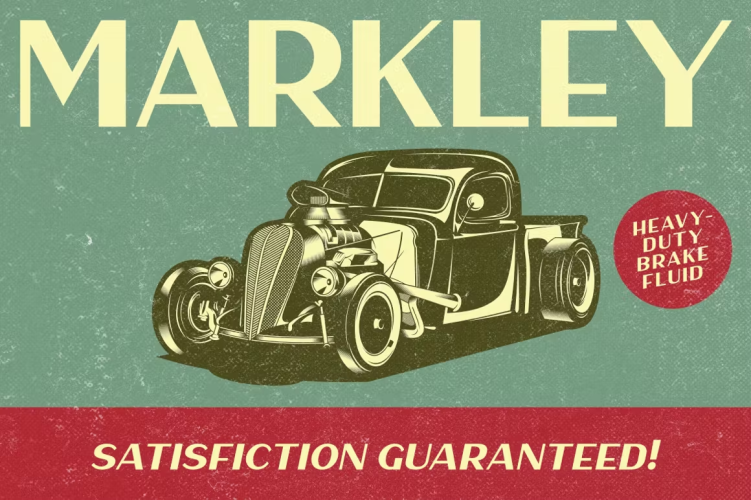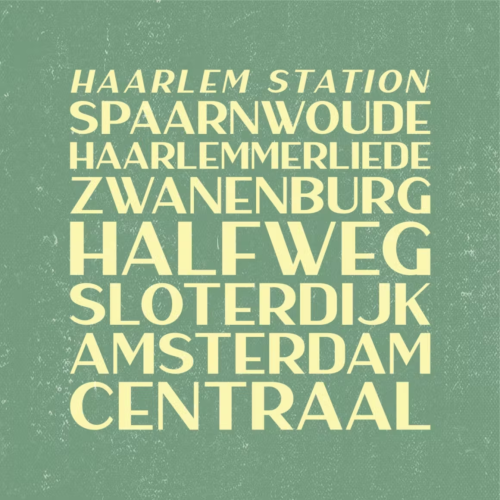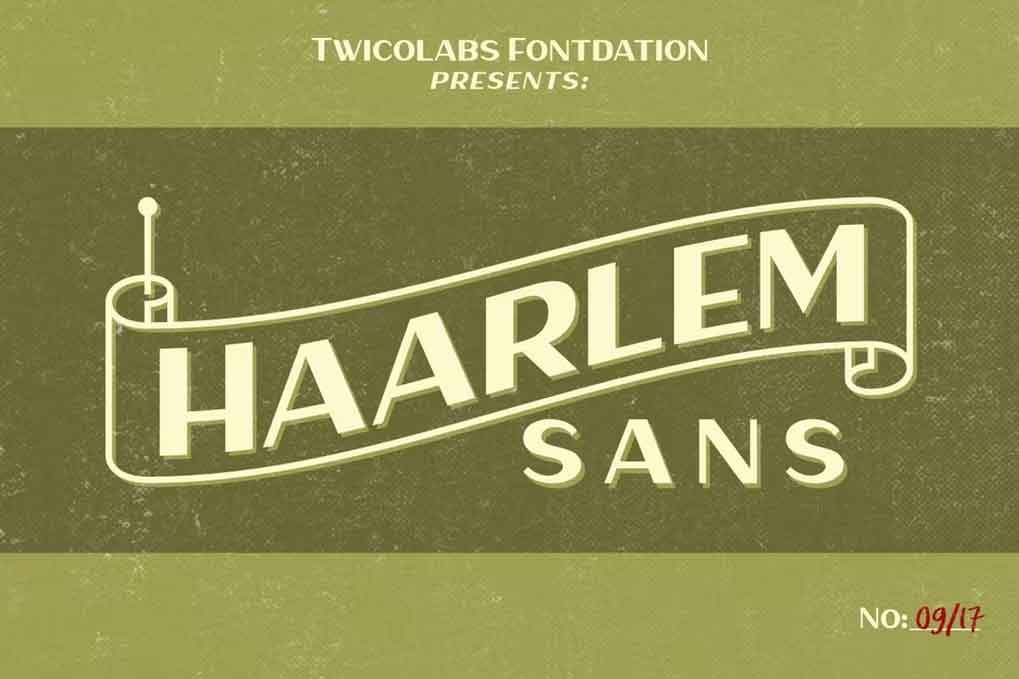
Haarlem Sans Font
Introducing our new font; Haarlem Sans. A wide sans-serif font with a touch of classic and art-deco style. Inspired by the calm and uniqueness of Haarlem town, NL, mixed…
Introducing our new font; Haarlem Sans. A wide sans-serif font with a touch of classic and art-deco style. Inspired by the calm and uniqueness of Haarlem town, NL, mixed with the old style letters that are used in vintage advertisements (product packaging, posters, etc). Its bold and wide form makes him (yes, he’s a he) suits best as a space killer.
Where Haarlem Sans Font works best
Haarlem Sans Font keeps its shape at 14 and 16 pixels, which is where interface text actually lives. Numbers and capitals stay distinguishable in tables.
Presentations are read at a distance; a clean sans with a strong bold is the safest hierarchy you can build in a hurry.
Simple letterforms survive angles, glare and movement, so Haarlem Sans Font suits door signs, menus boards and exhibition panels.
What kind of work does Haarlem Sans Font suit?
It sits in the Sans Serif Fonts group and reads as bold, classic, sans serif, sans serif fonts. That makes it a candidate wherever those qualities help: headings, packaging, social graphics and brand work. Set it at the size you plan to use before deciding.